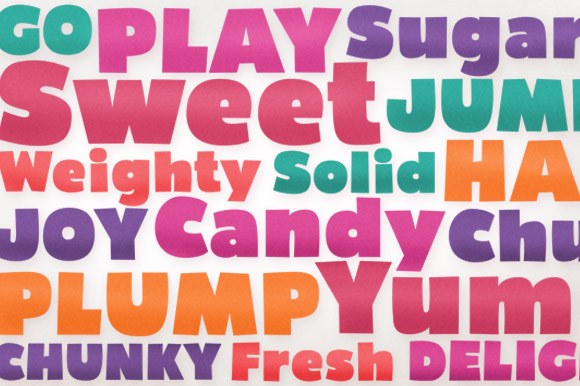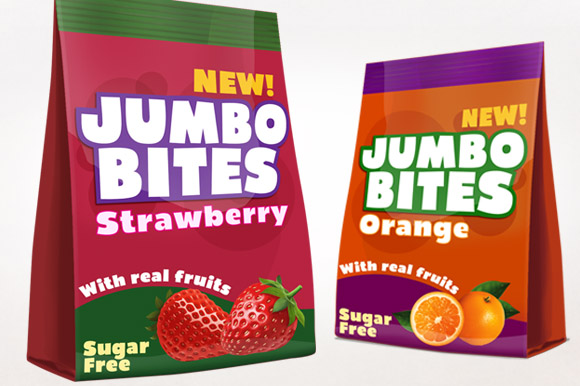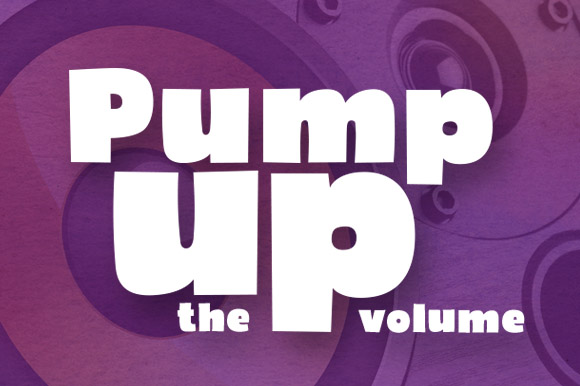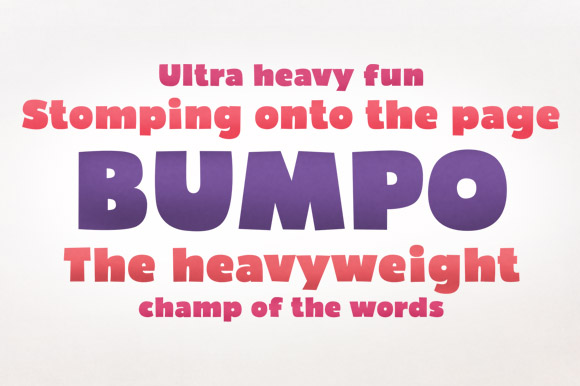
Bumpo Font: The Fun, Playful, and Chunky Font for Your Creative Projects
Are you a designer or crafter looking for a font that can add a touch of fun and friendliness to your creative projects? Look no further than the Bumpo font! Bumbo, as it’s affectionately known, is a playful and chunky font that’s perfect for making clear, loud, and fun communications. In this article, we’ll dive into the world of Bumpo font, exploring its unique features, uses, and benefits.
The Personality of Bumpo Font
Bumbo is a font with a distinct personality – it’s friendly, approachable, and extra extra heavy. Its chunky design makes it stand out from other fonts, giving it a loud and clear presence that’s hard to ignore. When you use Bumbo, you can be sure that your message will be conveyed with a sense of fun and playfulness that’s perfect for engaging your audience.
Perfect for Children’s Products and Posters
Bumbo font is particularly well-suited for children’s products and posters. Its playful and friendly personality makes it an excellent choice for kid-friendly designs, such as toys, games, and educational materials. The font’s chunky design also makes it easy to read, even from a distance, which is perfect for posters and other large-format designs.
Key Features of Bumpo Font
• Playful and chunky design: Bumbo’s unique design makes it stand out from other fonts, giving it a fun and friendly personality.
• Extra extra heavy: Bumbo’s bold design ensures that your message will be conveyed with clarity and impact.
• Clear and loud: The font’s chunky design makes it easy to read, even from a distance.
• Fun and friendly: Bumbo’s personality is perfect for engaging your audience and adding a touch of playfulness to your designs.
Using Bumpo Font in Your Designs
Bumbo font is versatile and can be used in a variety of design projects, including:
• Children’s products: Toys, games, educational materials, and more.
• Posters and flyers: Bumbo’s chunky design makes it perfect for large-format designs.
• Social media graphics: Add a touch of fun and friendliness to your social media posts with Bumbo.
• Branding and packaging: Use Bumbo to add a playful touch to your brand’s packaging and marketing materials.
Tips for Getting the Most Out of Bumpo Font
To get the most out of Bumbo font, here are a few tips to keep in mind:
• Use it sparingly: Bumbo’s bold design can be overwhelming if overused. Use it sparingly to add emphasis to your message.
• Pair it with other fonts: Bumbo pairs well with other fonts, such as sans-serif fonts, to create a visually appealing design.
• Experiment with colors: Bumbo’s playful personality lends itself well to bright and bold colors. Experiment with different color schemes to find the one that works best for your design.
In conclusion, Bumpo font is a fun, playful, and chunky font that’s perfect for adding a touch of friendliness and playfulness to your designs. Its unique personality and features make it an excellent choice for children’s products, posters, and other design projects. With its versatility and ease of use, Bumbo is a font that’s sure to become a favorite among designers and crafters.